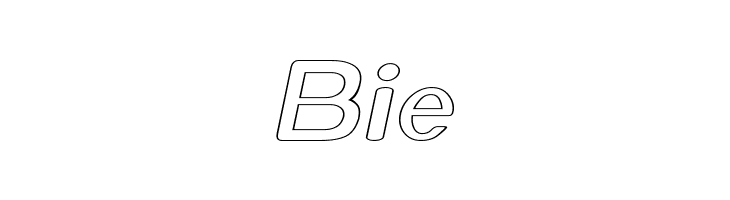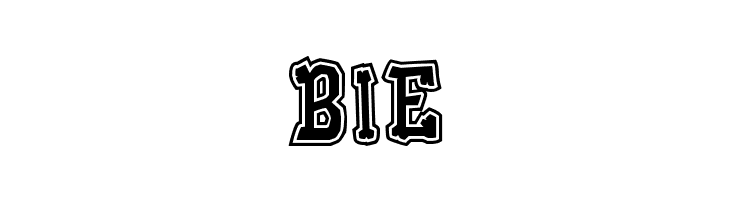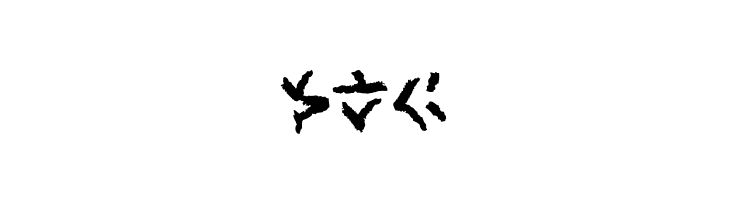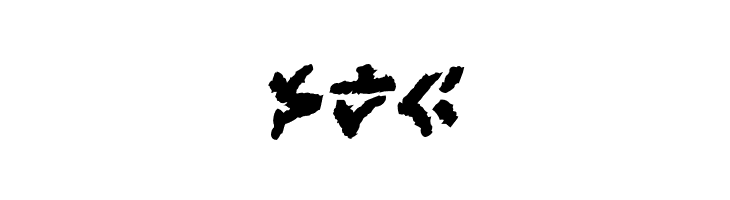
• XenoTribalBB
A bold, tribal-inspired decorative font with angular, textured strokes.
• XenoTribalBB-Bold
A bold, tribal-inspired font with sharp, angular strokes and a dynamic, hand-drawn appearance.
• Xero Bold Italic
A bold, italic font with smooth, rounded edges and a modern slant.
• Xero Hollow Italic
A modern, italicized hollow font with smooth curves and rounded edges.
• Xero Italic
A sleek, modern italic font with smooth curves and consistent stroke width.
• Xero Thin Italic
A sleek, modern, thin italic font with a clean and professional appearance.
• XiBeronne
A traditional Blackletter font with ornate, medieval-inspired design.
• Xilo Galdino
A bold, handcrafted font with high contrast and irregular, organic shapes.
• Xilo Galdino Outline
A bold, outlined font with a vintage and decorative style.
• Xilo Prosa
A bold, handcrafted font with a rugged, organic appearance.